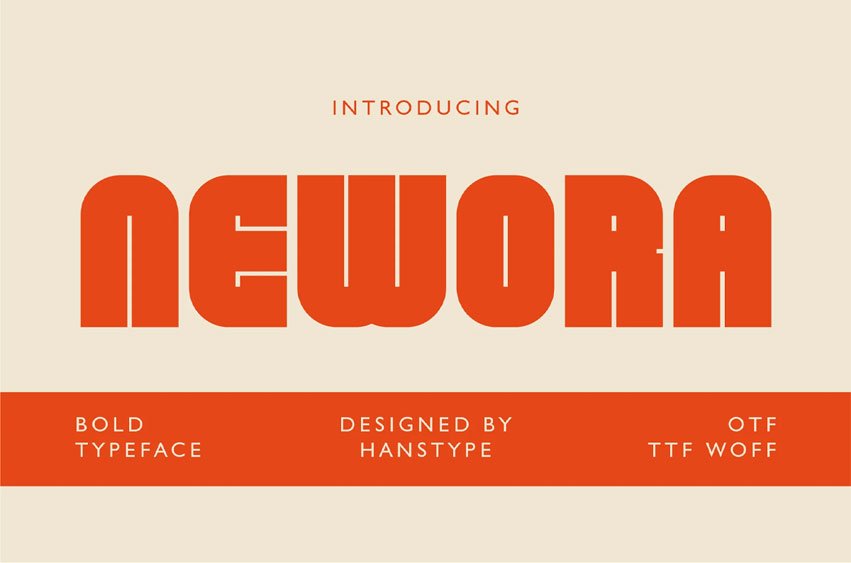
Newora Font
Newora Font is a bold and expressive typeface that brings a fresh, contemporary voice to design.
Its distinctive form and solid weight make it ideal for brands that want to appear modern, bold, and memorable.